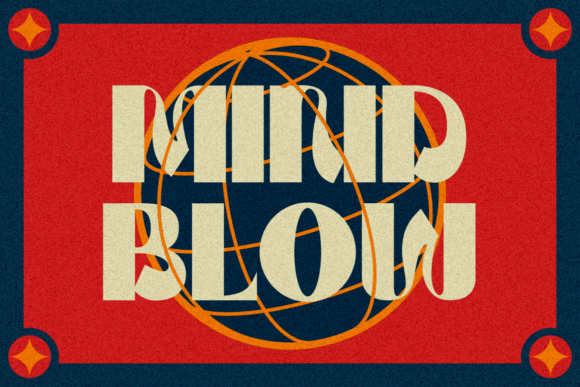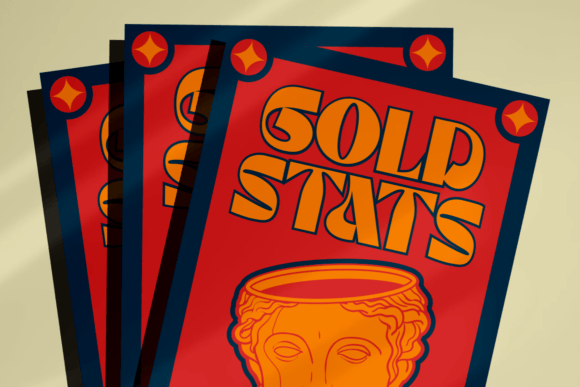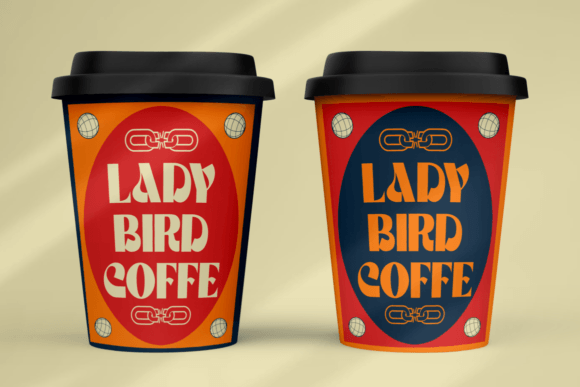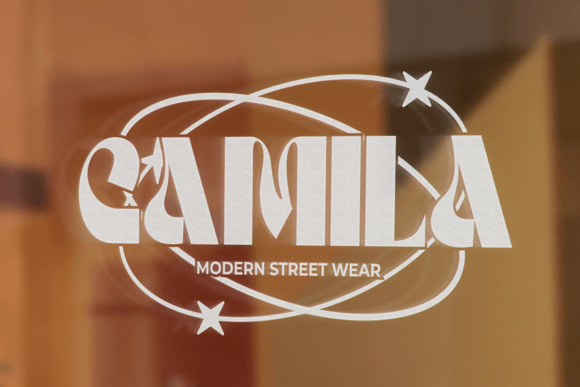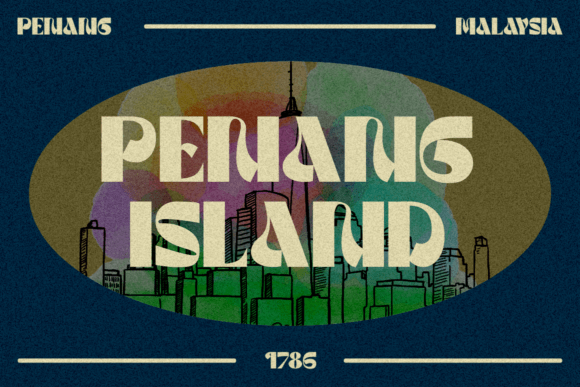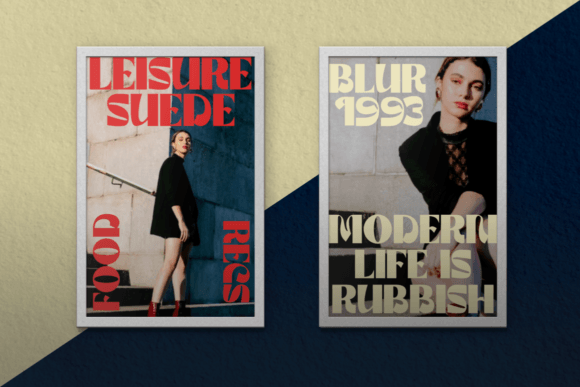
The Retro Charm of Blue Pastel Font: A Designer’s Delight
I’ll never forget the time I was working on a vintage-inspired branding project for a client, and I just couldn’t seem to find the perfect font. The client wanted something that exuded a sense of nostalgia and playfulness, but still looked modern and fresh. After hours of scouring the internet and trying out different fonts, I stumbled upon Blue Pastel – Display Font. It was love at first sight! 💕
The bold and retro-inspired design of Blue Pastel immediately caught my attention, and I knew I had found the perfect fit for my project. In this article, I’ll share my experience with Blue Pastel, its features, and how to make the most of this amazing font.
An Honest Review of Blue Pastel Font
What I Love About Blue Pastel ✨
• ✅ Unique and groovy appearance that sets it apart from traditional serif fonts
• ✅ Bold display style that immediately captures attention and adds a strong visual impact
• ✅ Retro-inspired elements that evoke a sense of nostalgia and take your audience on a trip down memory lane
• ✅ Versatile and can be used for various design applications, including logos, branding, headlines, titles, and posters
While Blue Pastel is an amazing font, there are a few things to keep in mind:
• 🤔 The font’s bold style can be overwhelming if not used in moderation. Make sure to balance it with other design elements.
• ⚠️ Some of the font’s retro-inspired elements may not work well in very small sizes. Experiment with different sizes to find the sweet spot.
The Designer Inspiration Behind Blue Pastel
The story behind Blue Pastel is one of creative experimentation and playfulness. The font’s designer was inspired by the retro charm of vintage posters and advertisements from the 1950s and 60s. They wanted to create a font that captured the essence of that era, while still feeling modern and fresh.
The result is a font that’s equal parts nostalgic and contemporary, with a unique personality that’s sure to make your designs stand out.
Q: What is Blue Pastel font best used for?
A: Blue Pastel is perfect for logos, branding, headlines, titles, posters, and any design project that needs a touch of nostalgia and playfulness.
Q: Is Blue Pastel a difficult font to read?
A: While Blue Pastel has a bold and playful design, it’s still relatively easy to read, especially in larger sizes. However, it’s best used for display purposes rather than body text.